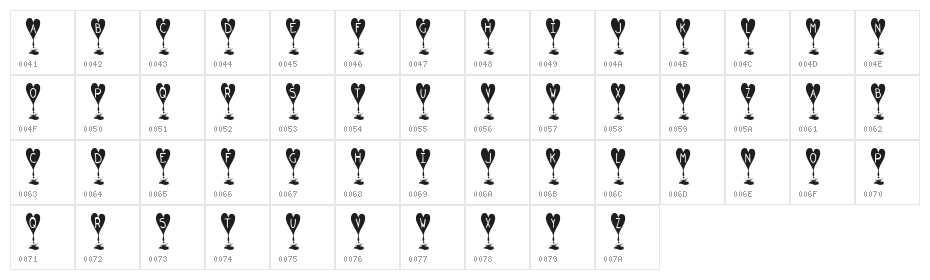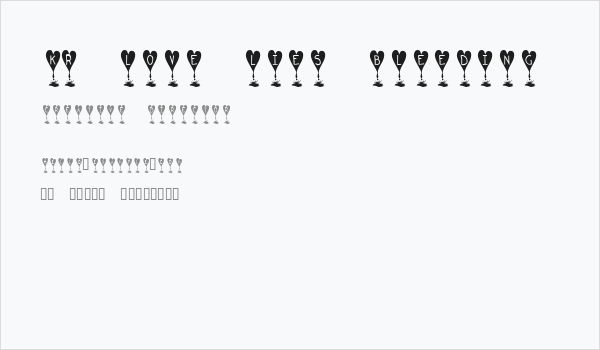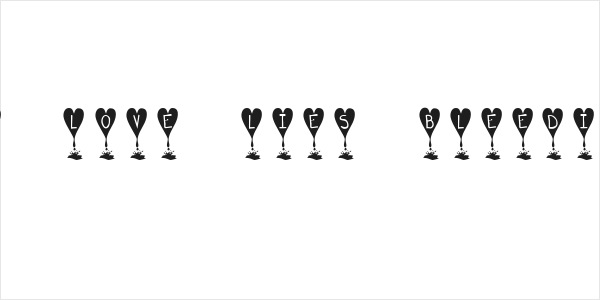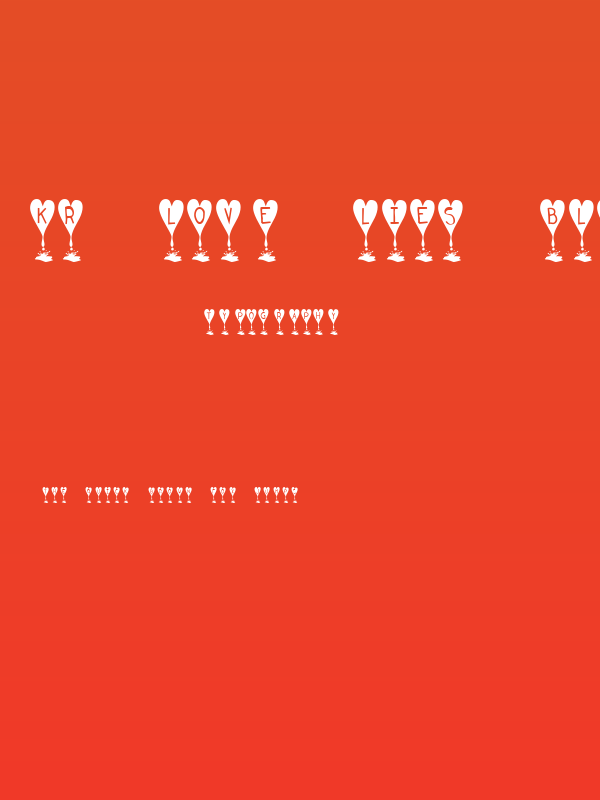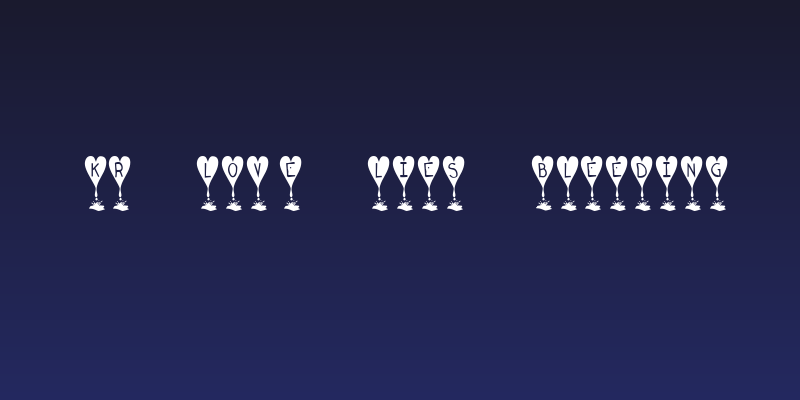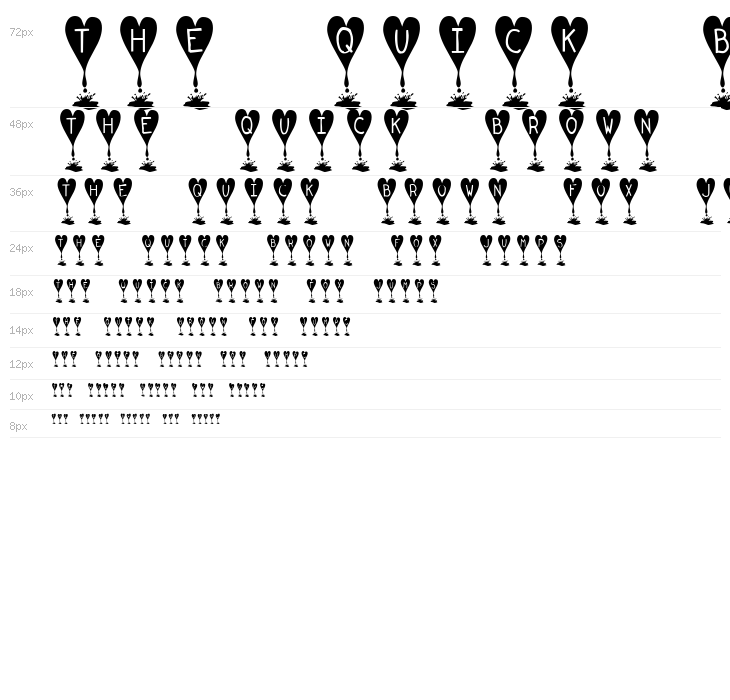
KR Love Lies Bleeding Font
KR Love Lies Bleeding Description
This font features a unique and artistic design where each character is encapsulated within a heart shape, with a dripping effect at the bottom, resembling a bleeding heart. The characters are bold and stylized, offering a dramatic and eye-catching appearance. The design incorporates a playful yet gothic aesthetic, making it suitable for themes that require a touch of romance or dark elegance. The heart shapes are consistent across all characters, providing a uniform look, while the dripping effect adds an element of movement and fluidity. The font is decorative and best used in contexts where visual impact is prioritized over readability.
| Proposed Projects | Ideal for Valentine's Day cards, gothic-themed invitations, romantic posters, and artistic projects requiring a dramatic flair. |